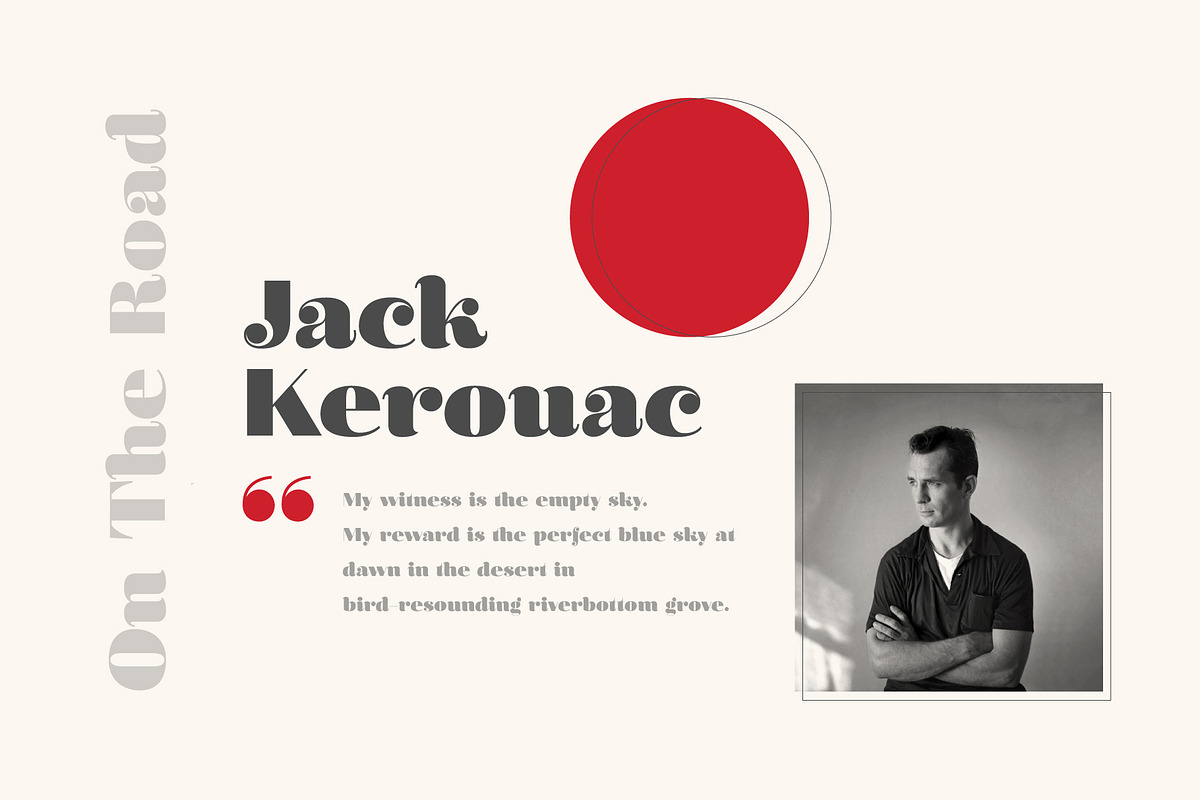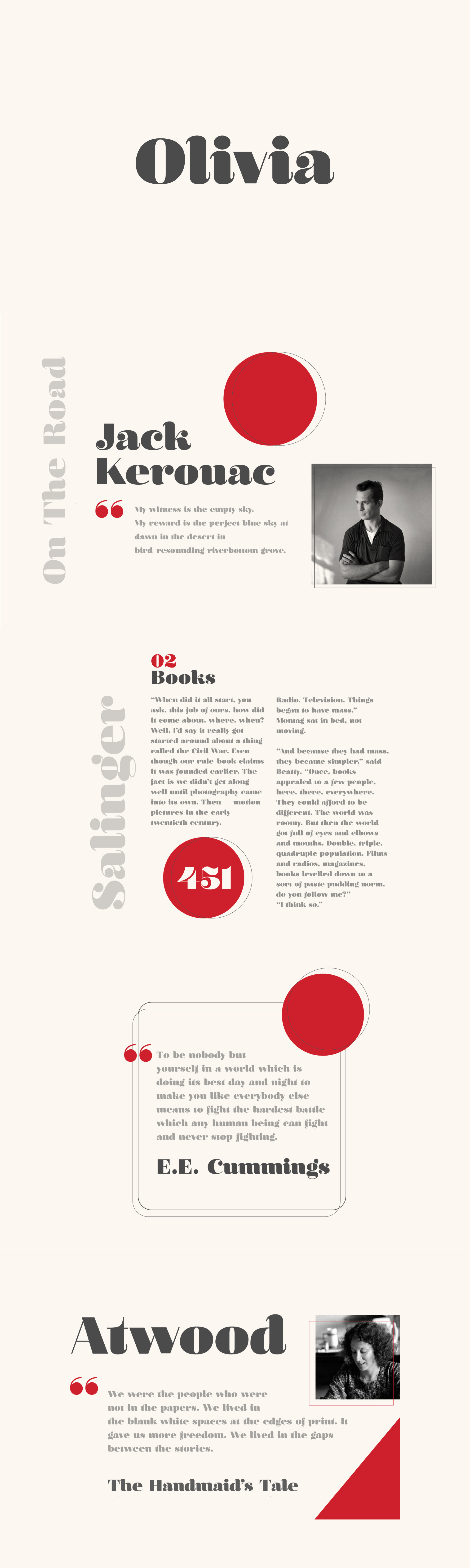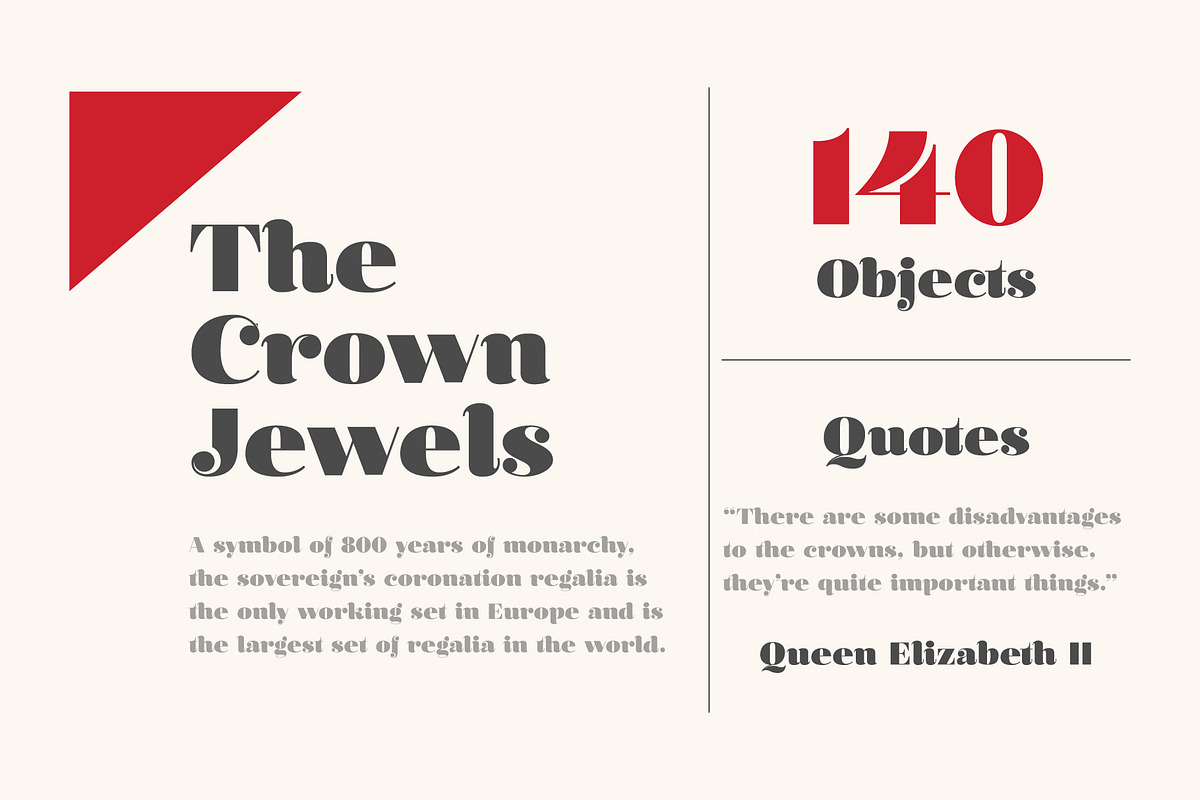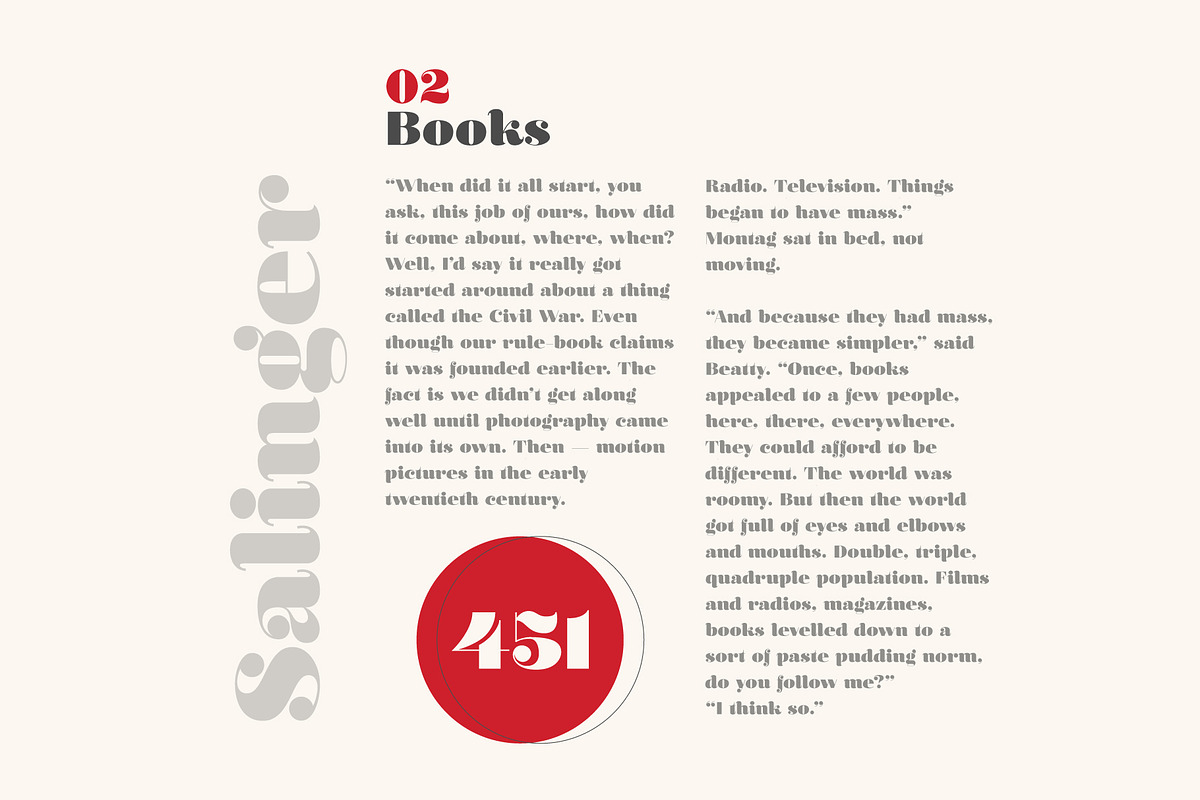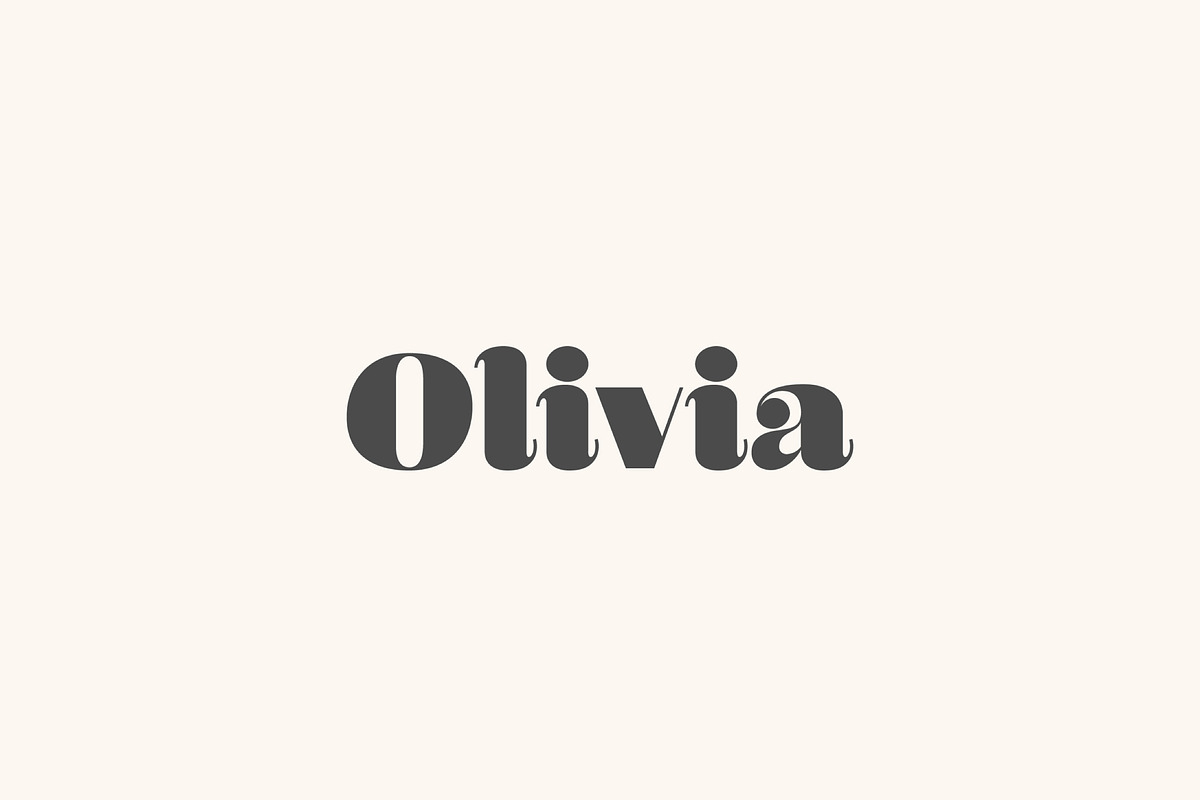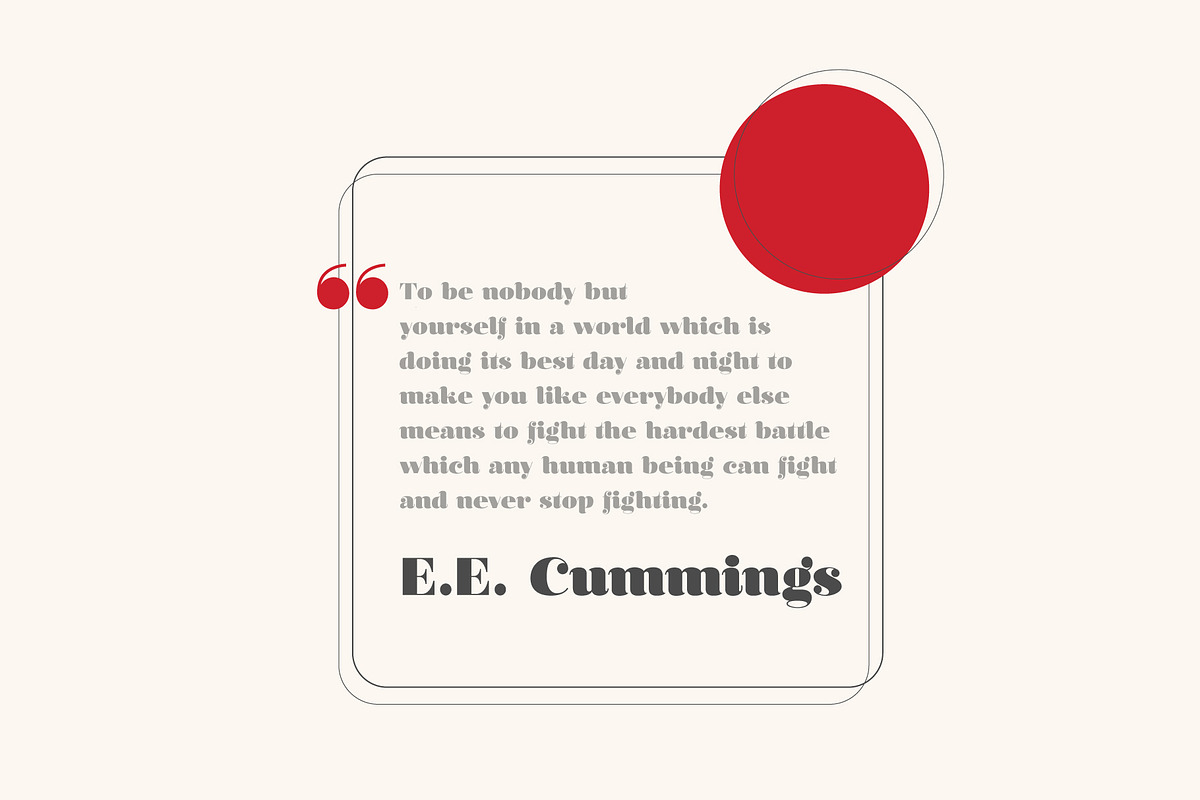
Olivia - A Curvy Typeface
Create bold, beautiful graphics and gorgeous headlines with a vintage feel. Olivia's contrasting lines, wide curves, and short tails give your designs personality and a touch of elegance. This versatility makes Olivia perfect for logos, wedding invitations, quotes, branding, editorials, and more. Olivia's aesthetic will draw you in time and again and elevate your designs. Start creating something beautiful today with Olivia.
Uppercase Characters
Lowercase Characters